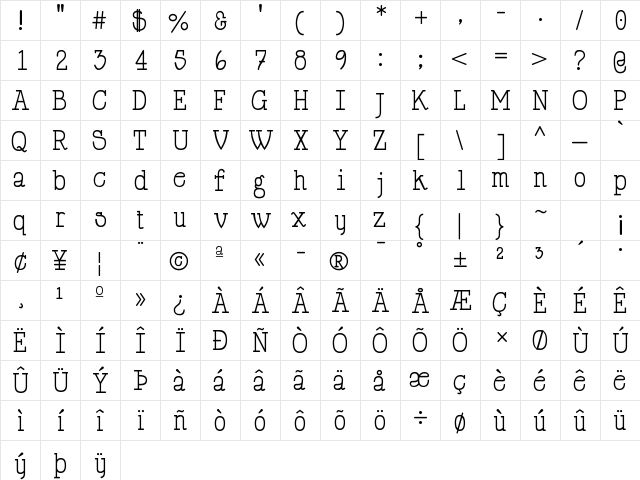
HappyPhantom Regular
| Designer | Lauren Thompson, "Nymphont" |
Design Context for HappyPhantom Typeface
HappyPhantom takes a measured approach to typography — its balanced proportions and neutral character make it a reliable workhorse for both digital and print work.
Pro Tip: Pair HappyPhantom with a font of contrasting weight or personality to build a more expressive typographic hierarchy.